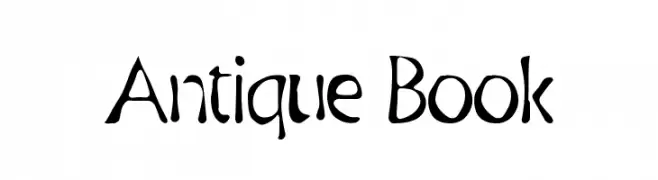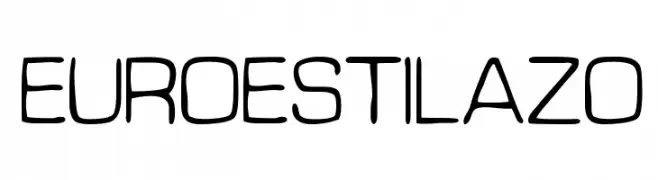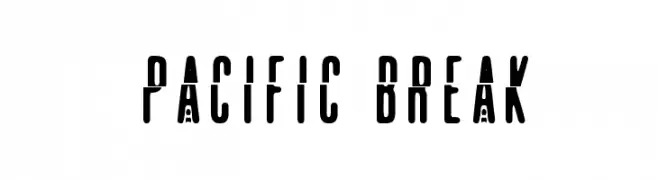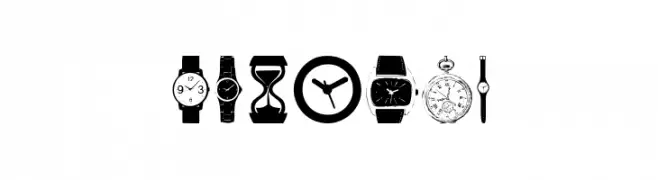
Icon-based font featuring diverse watch and clock illustrations.
A modern, rounded font with a retro touch, offering clean and legible characters.
A whimsical, hand-drawn style with a vintage flair.
A bold, modern font with distinctive split characters and high contrast.